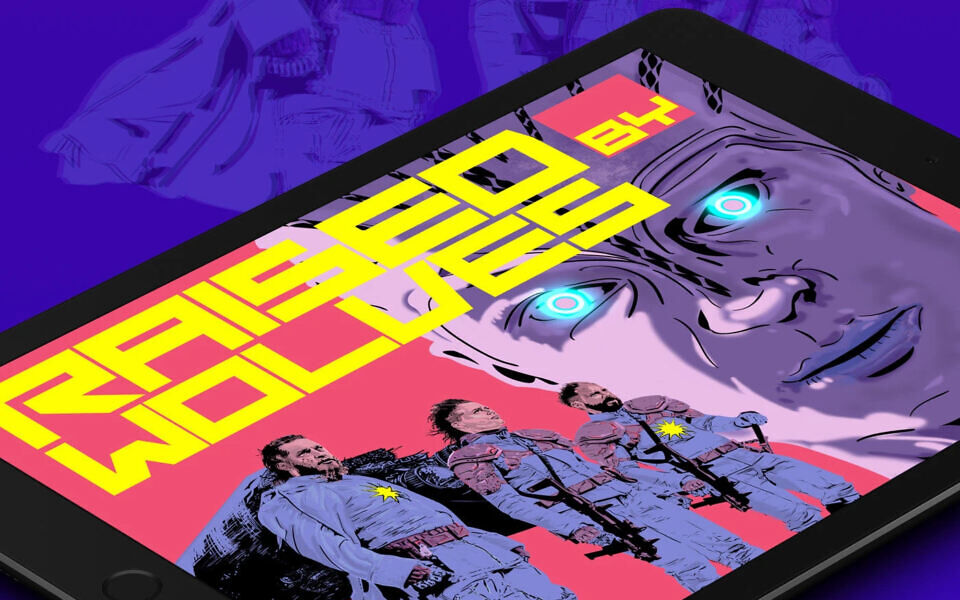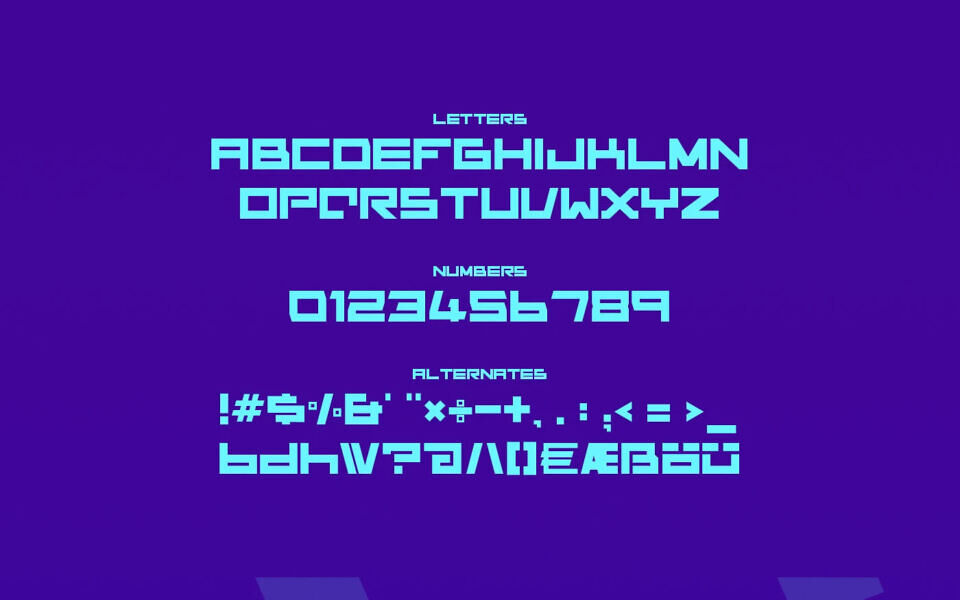
Dredd Font
Dredd Display Font is a simple yet wide retro-futuristic style font with width & sharp lines of this font makes it stand out in a crowd by Koray Öztürk.
It comes in uppercase, lowercase, numbers, symbols and some special characters. Dredd font is suitable for marketing, posters, t-shirts, magazines, social media posts, advertisements, label, invitation, stationery, headlines, logos, gaming, marketing, editorial designs and much more.